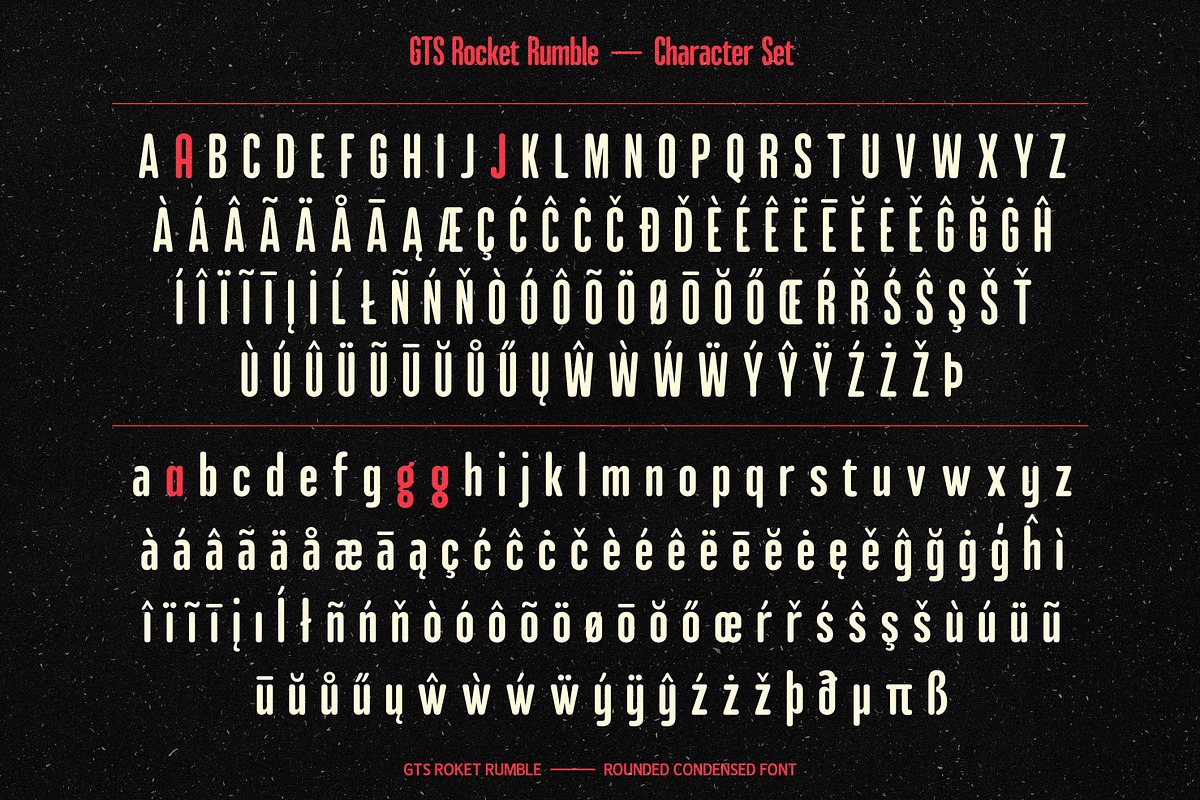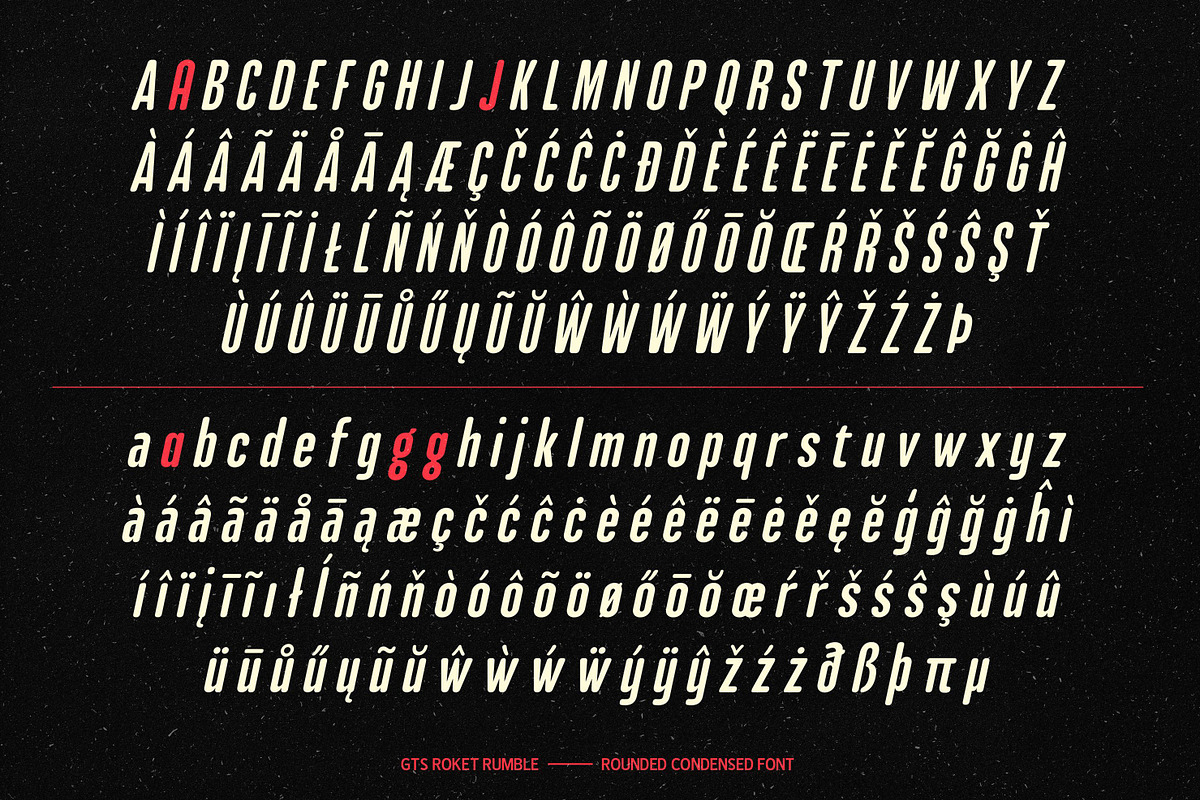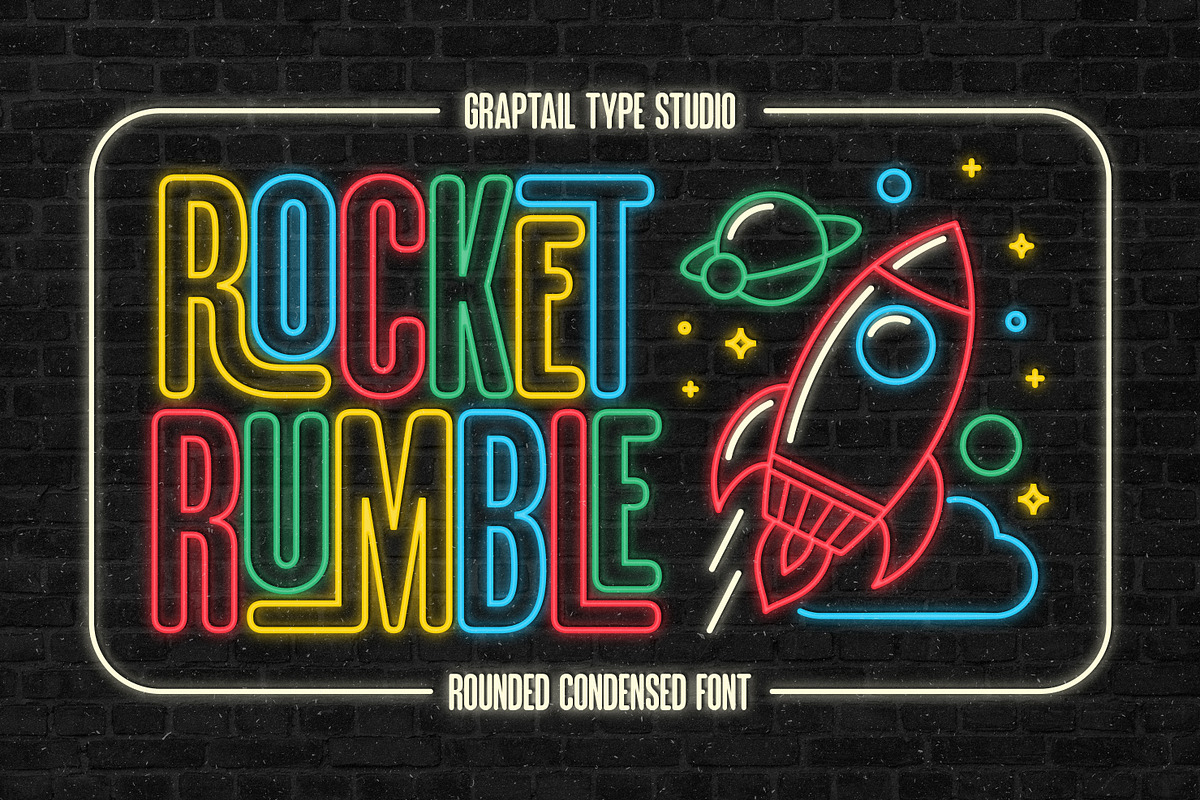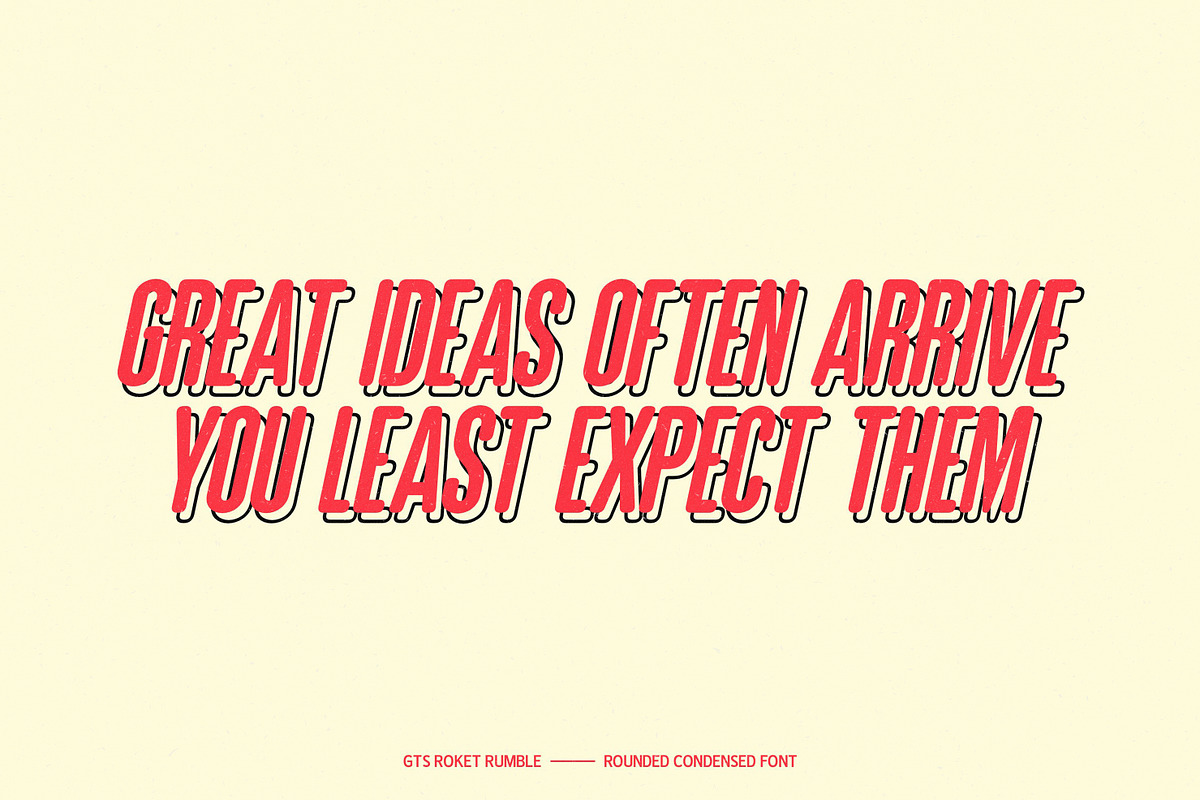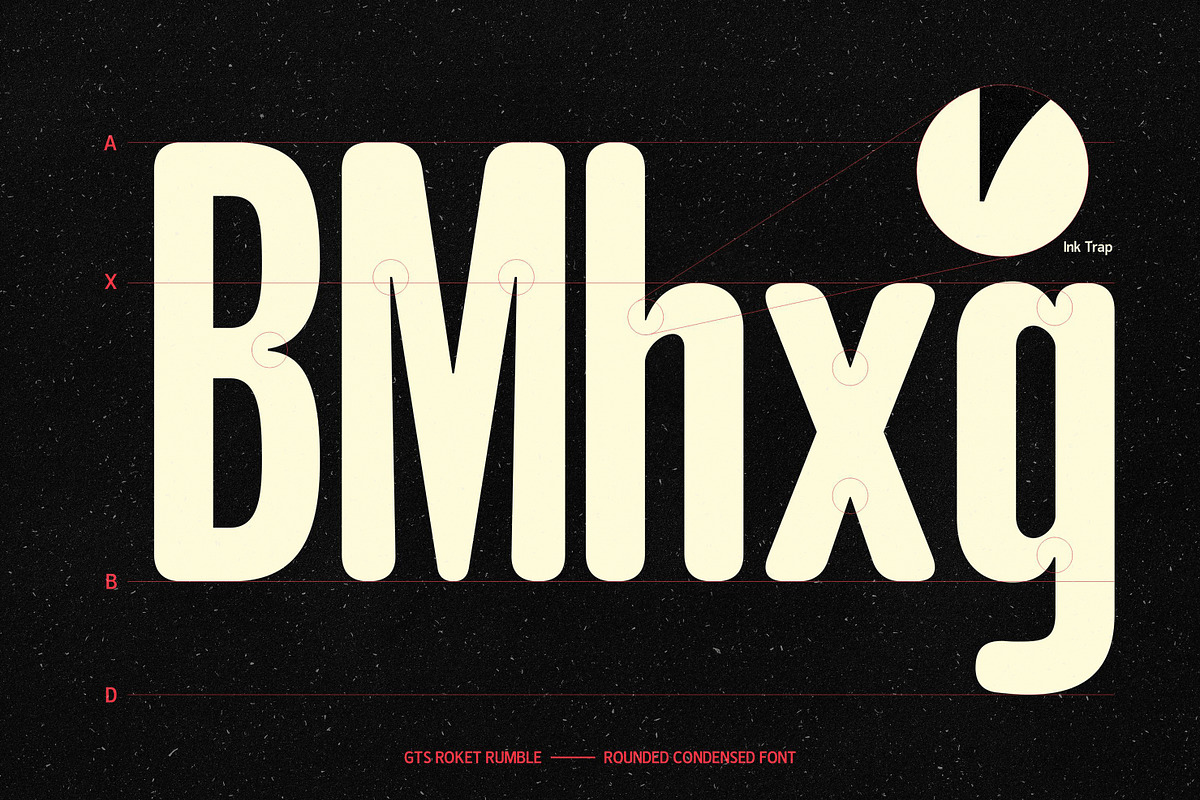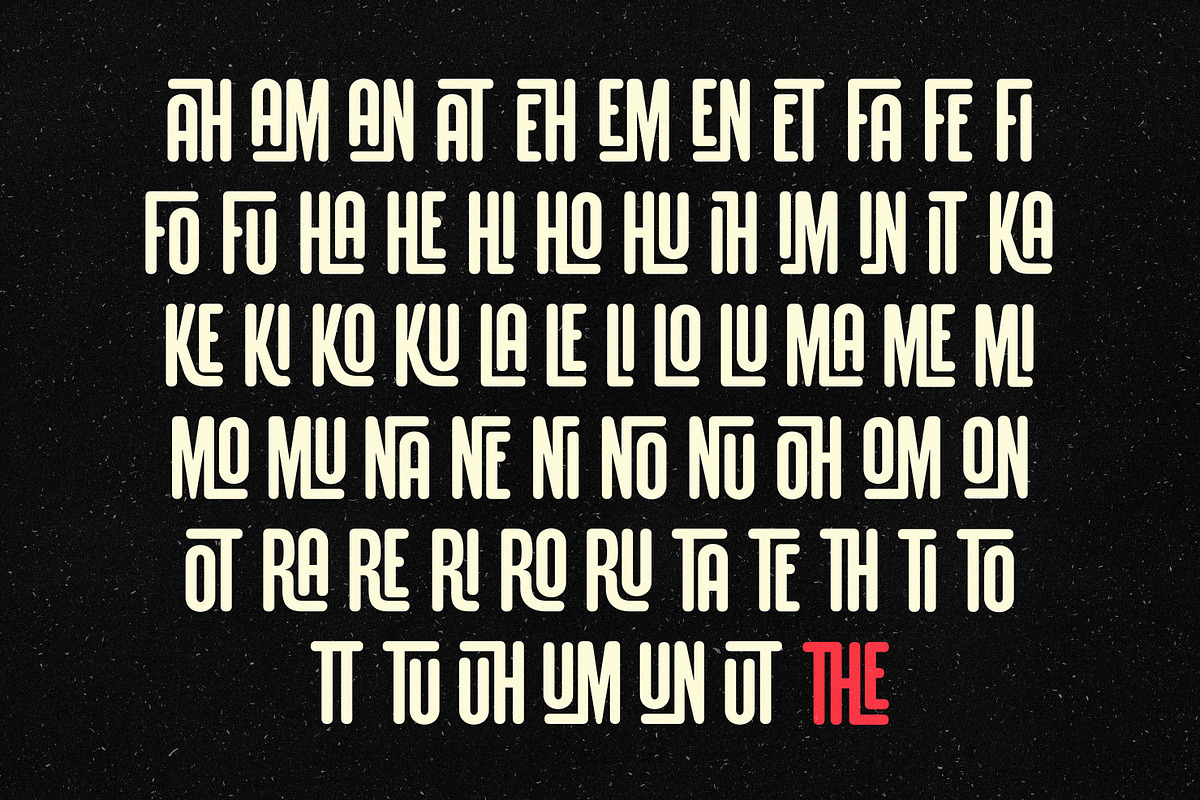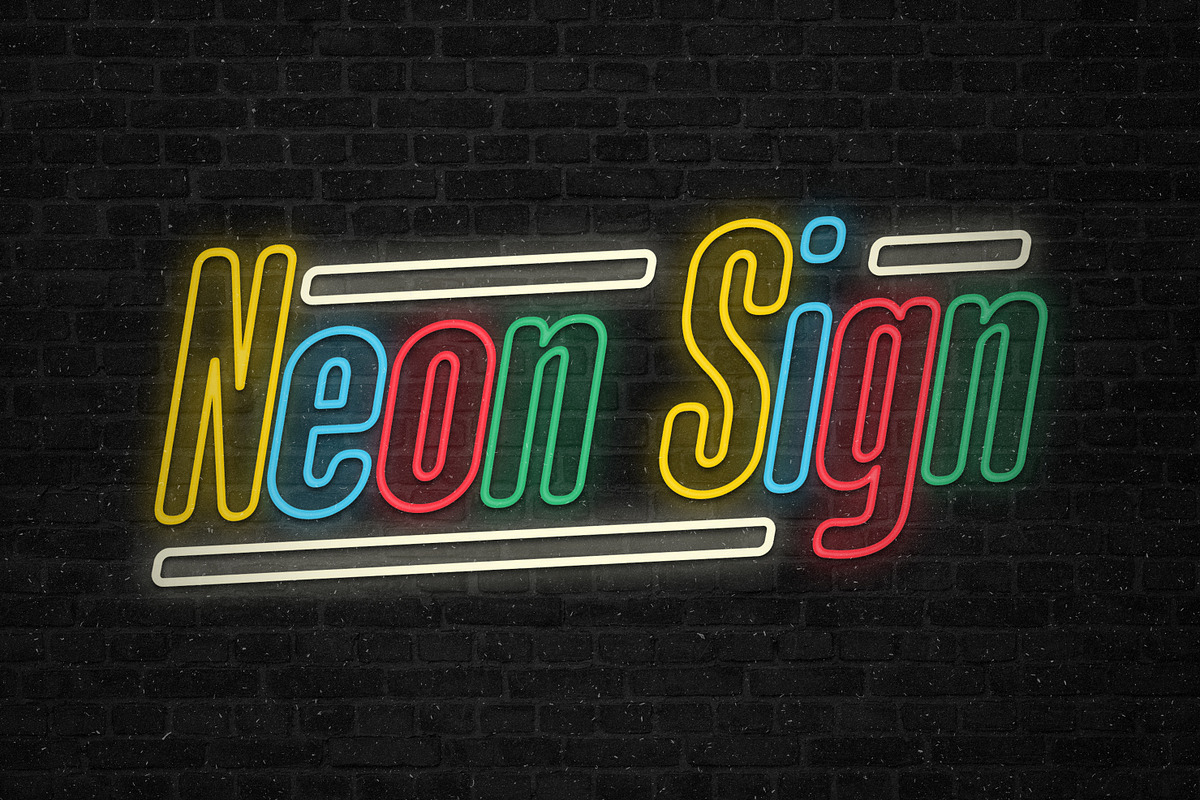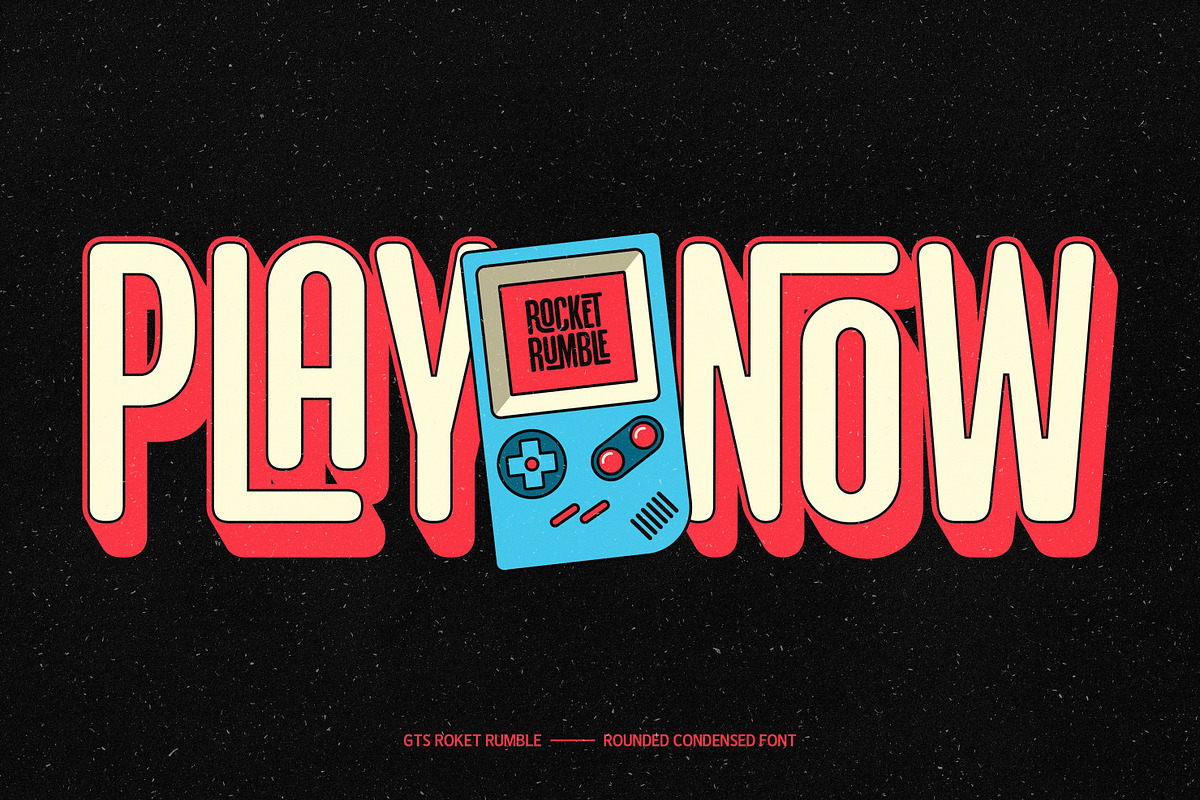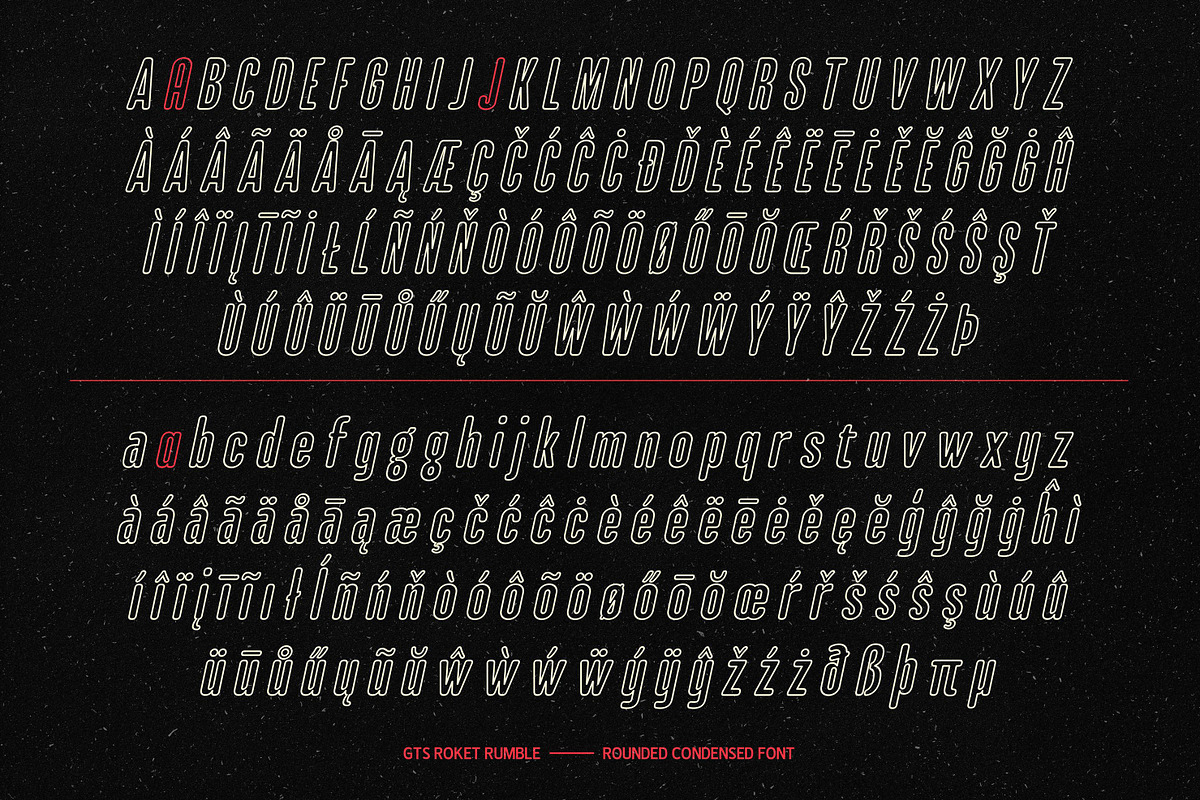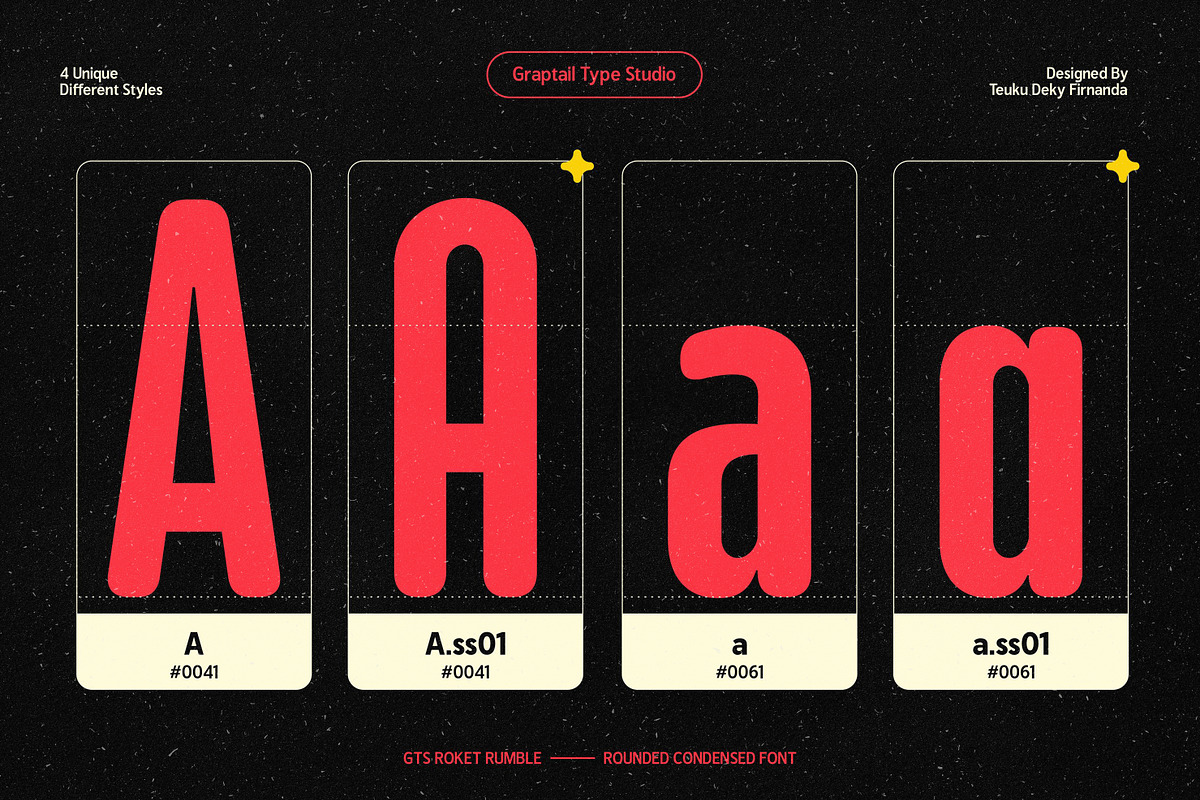
GTS Rocket Rumble | Retro Condensed
GTS Rocket Rumble Font is a retro-inspired, rounded, condensed typeface designed to evoke a sense of playful energy and bold expression. This font comes in two styles, Regular and Outline, offering versatility for various creative projects. With its smooth, rounded edges and condensed structure, Rocket Rumble is perfect for capturing a vintage aesthetic while remaining modern and sleek.
The font is particularly well-suited for neon-themed gaming graphics, delivering a dynamic, glowing look that enhances any digital or interactive design. Its legibility and unique personality make it an excellent choice for design, especially when aiming for a fun, retro-futuristic vibe. Rocket Rumble delivers a stylish punch with a nostalgic twist.
This font is perfect for creating nostalgic designs, such as retro/groovy posters, advertisements, and packaging. It's also great for creating unique and eye-catching titles and headings.
Choose GTS Rocket Rumble for a retro-style font that adds nostalgia and personality to your designs.